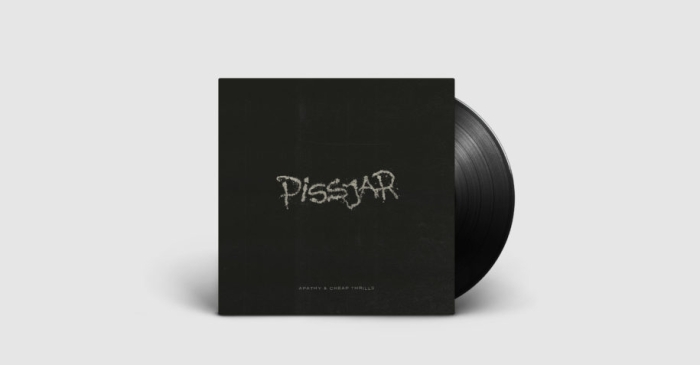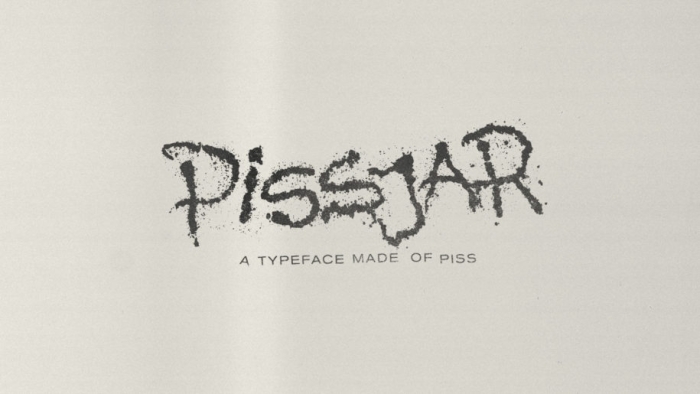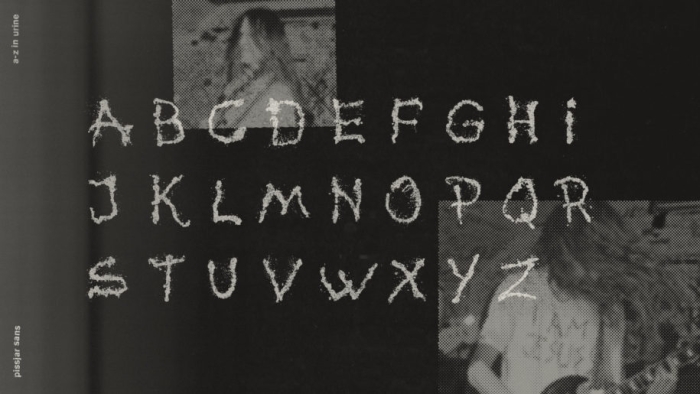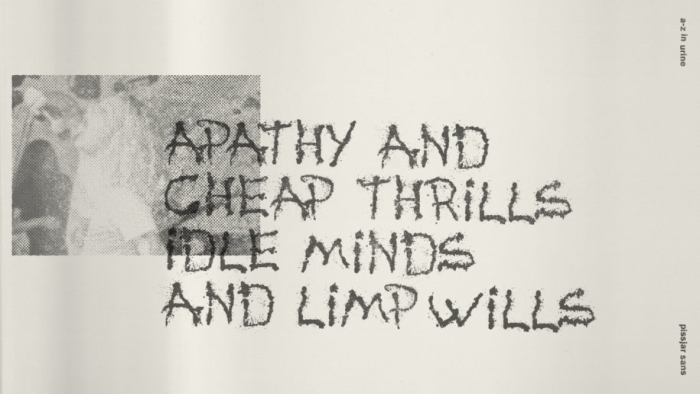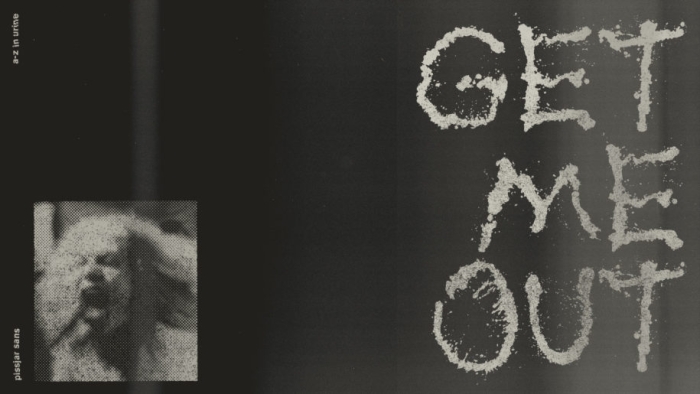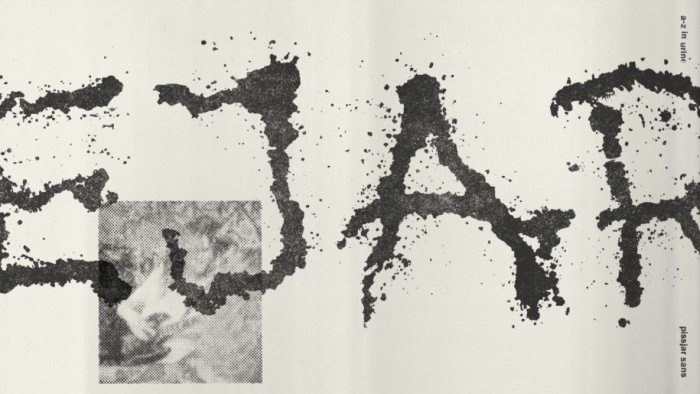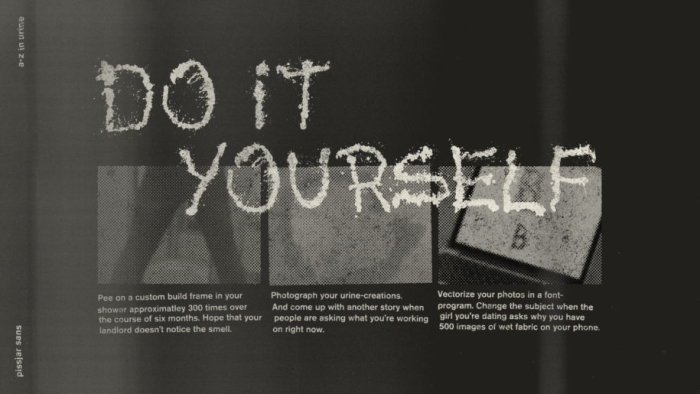
Pissjar Sans – A Typeface Made Of Piss
We have recorded our first album Apathy & Cheap Thrills and decided to go for a record cover that suits the music, with a logo made of piss.
After a couple of hard days of peeing, we realized that this could be so much more than a record cover and a couple of T-shirts. It could be what the world deserves – piss. That's why we created Pissjar Sans, a typeface of piss. For you to use in your wedding invitation, school report or as a company logo for your shitty startup. Enjoy!